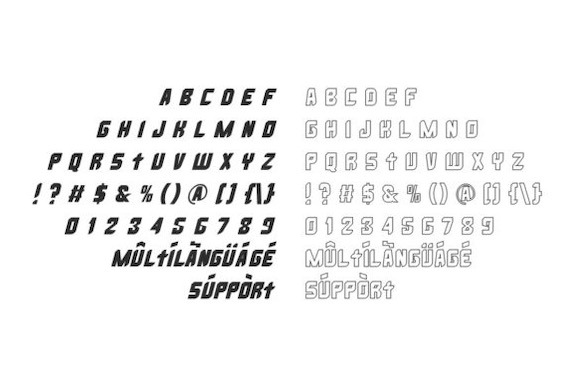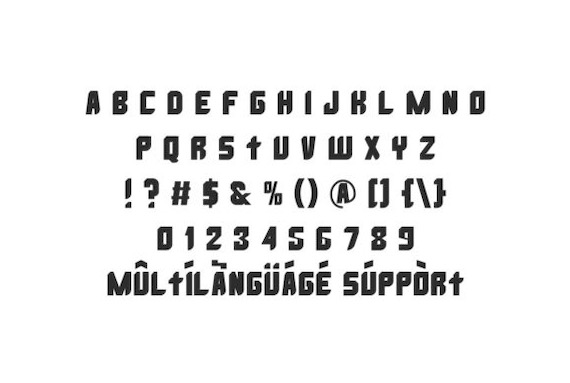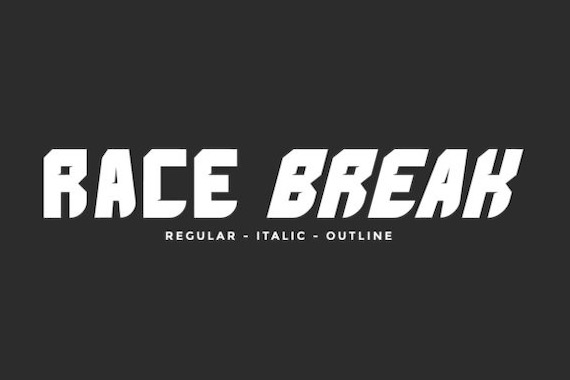
Race Break is a simple, cool, and powerful display font along with a unique techno look. This modern font was created and shared by Vintype Studio, and it’s very perfect for any branding project such as logos, t-shirt printing, creative products, or pretty much anything that could benefit from a futuristic vibe.
Race Break Display Font